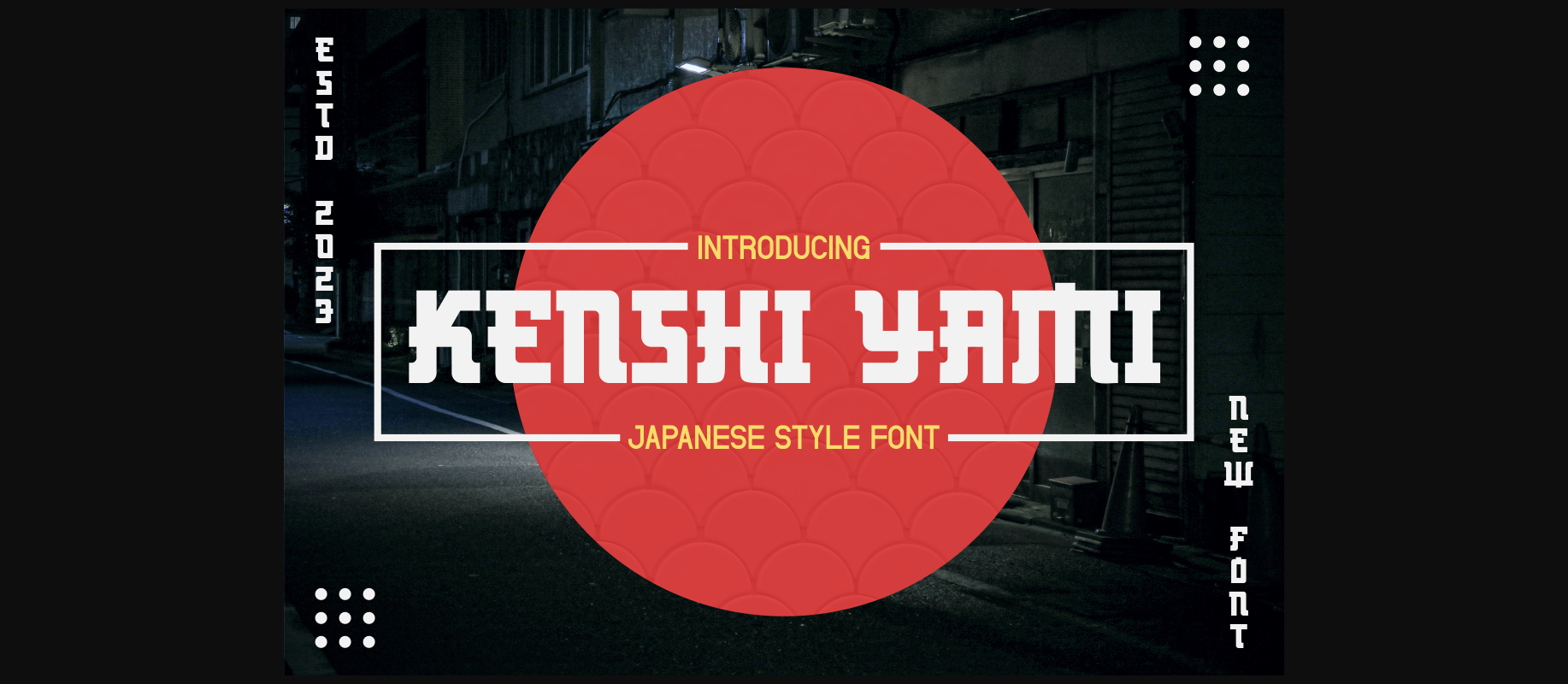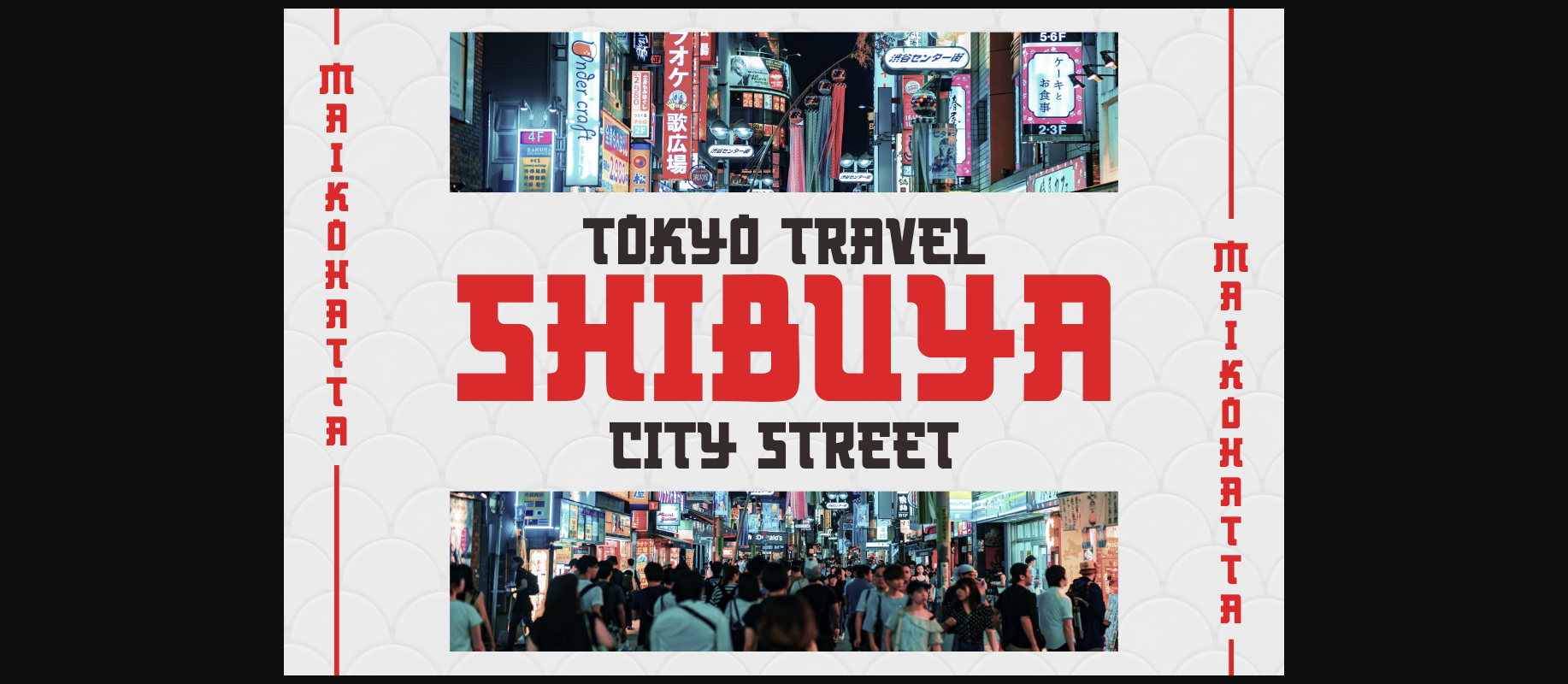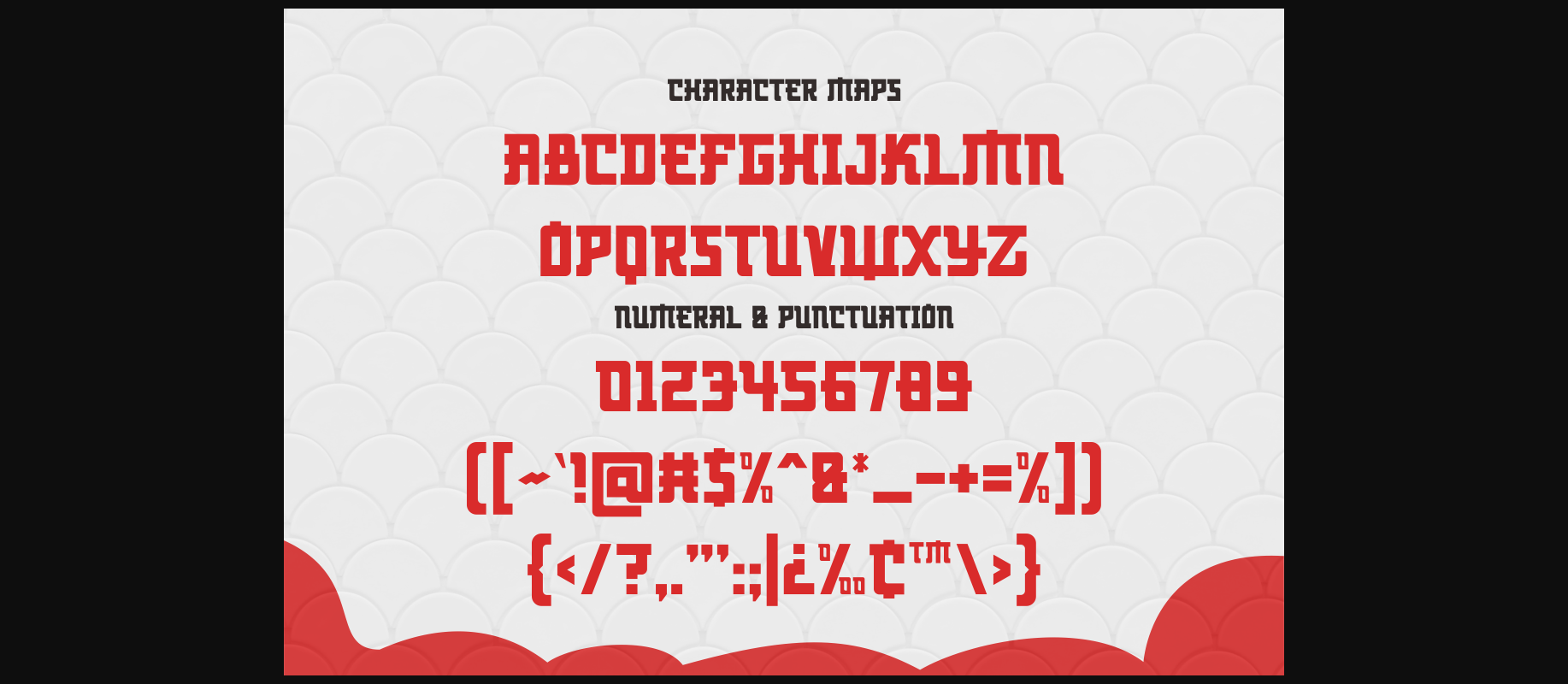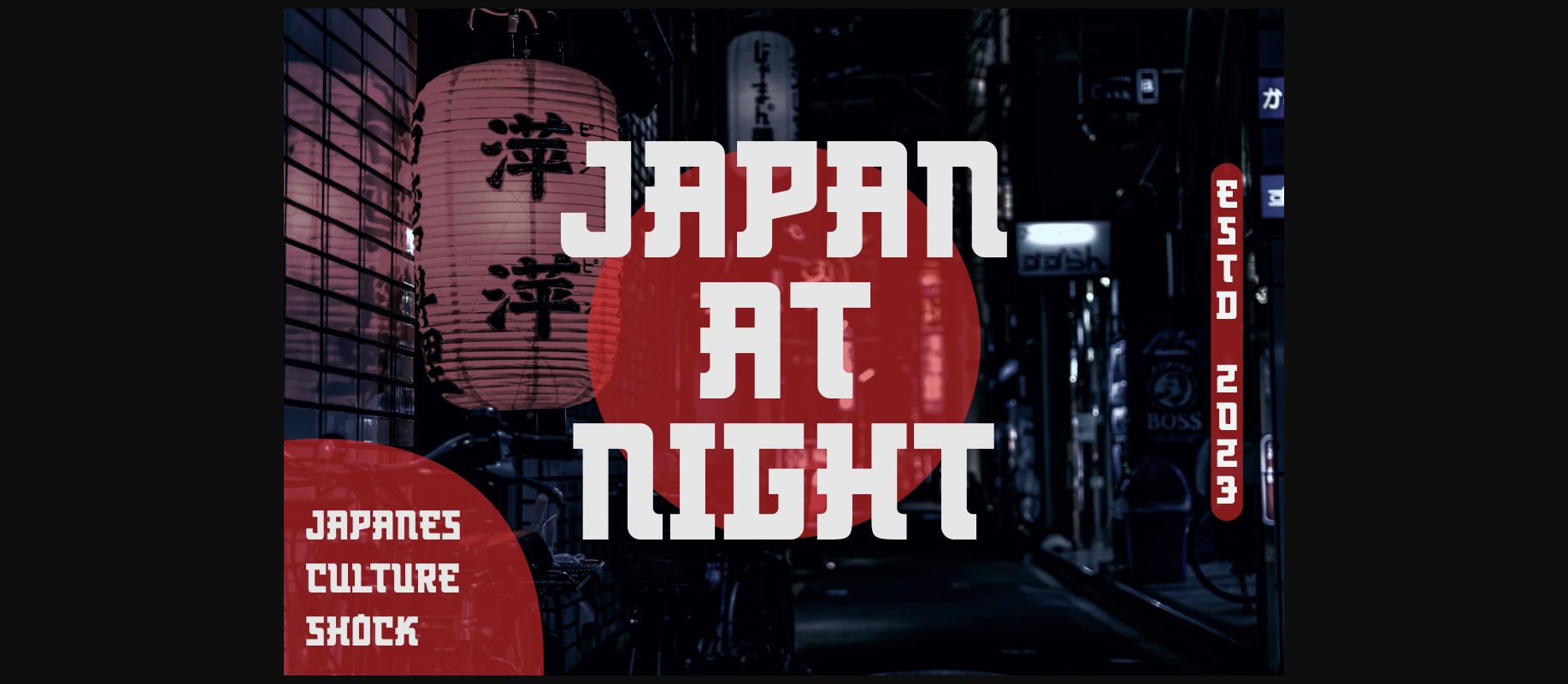
About Kenshi Yami Font
This font is a combination of beautiful aesthetics, rich cultural history, and versatility in various design contexts. This makes Japanese fonts popular in written communication, both in print and digital media, with the ability to create a unique and captivating impression.